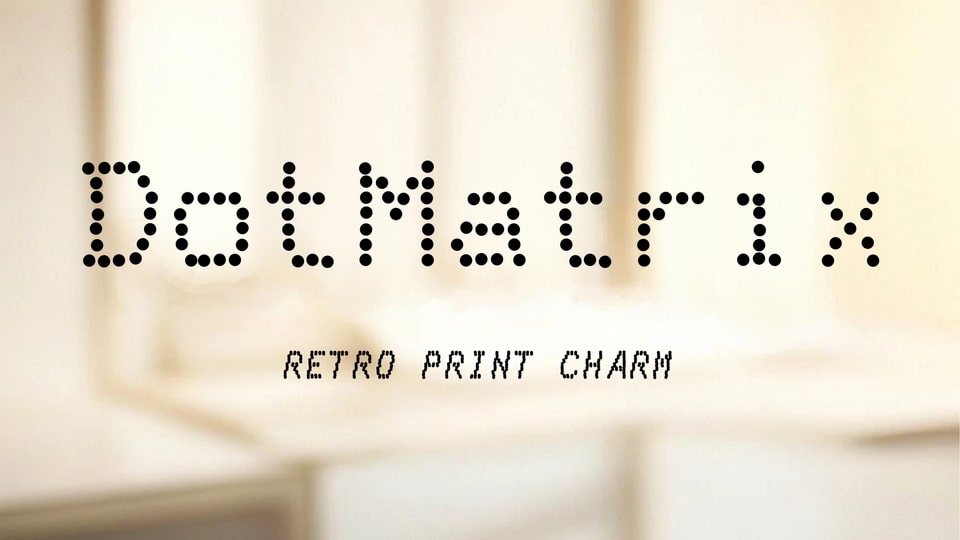
Download DotMatrix font, a display typeface inspired by the dot matrix printers of the 1980s, capturing the essence of the printing technologies from that era.
Designer: Stefan Schmidt